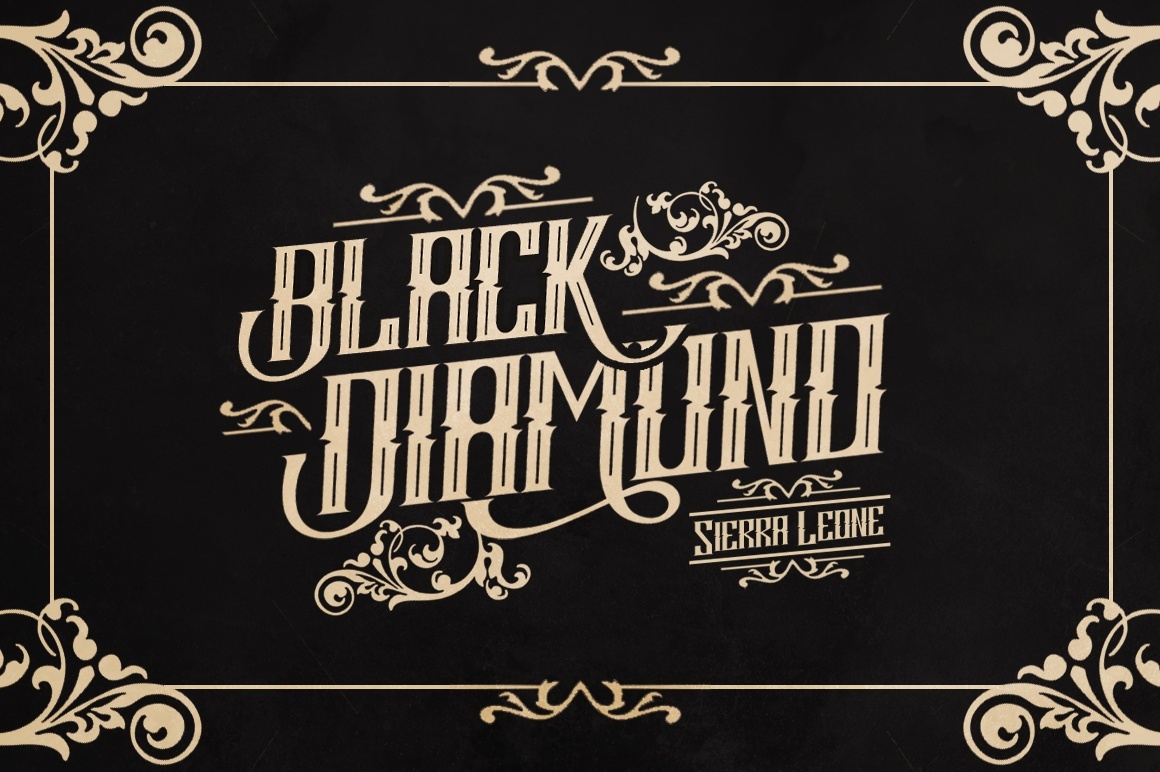
Realitium Font
Realitium is a vintage typeface it’s perfect for latterhead, vintage apparel design, headline, logotype, poster, card, and etc.
| Designer Name: | 177BC |
| Classification: | Blackletter / Gothic Fonts |